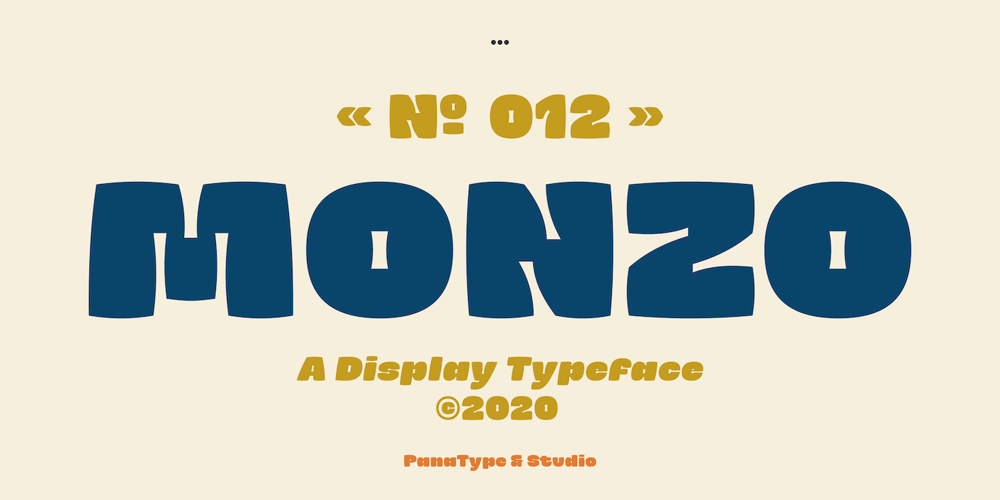
Monzo Font Family was designed by Boyan Nurdiansyah, Ajusia and published by Panatype Studio. Monzo contains 4 styles and family package options. MONZO is Contemporary Fat Font comes with 2 styles ( Regular & Outline ) with corresponding italics. Perfect for Logotype, Head text, Displayed text, and many more). Support for 75+ Language.